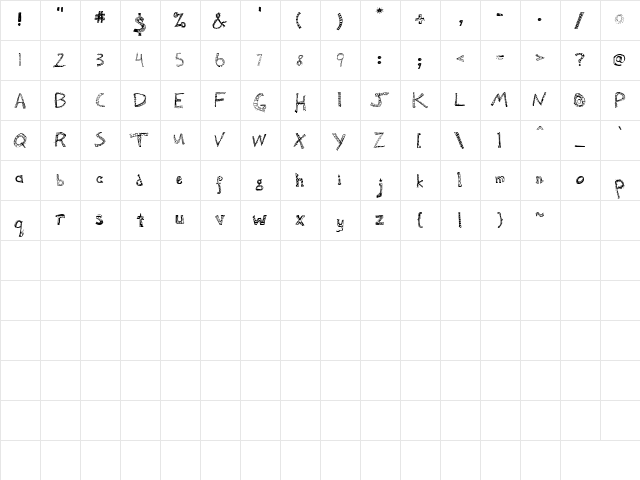
Irregular Regular Font Preview
Irregular Regular
Irregular Regular Font Details
Design Context for Irregular Typeface
Irregular is a composed and adaptable typeface that performs quietly and consistently across a wide range of design contexts.